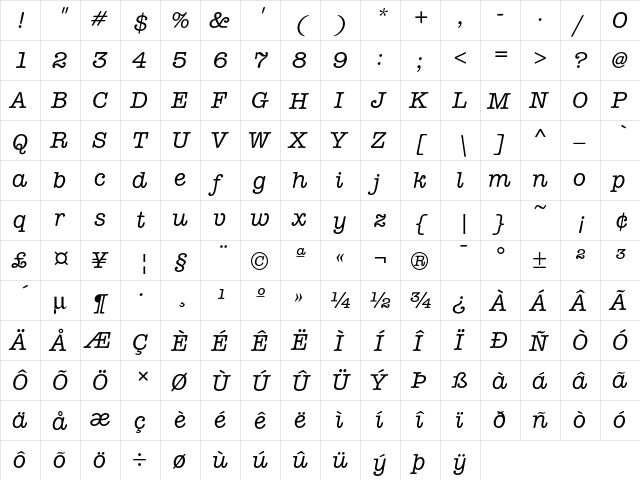
AmTypEFMedIta Regular
Design Context for AmTypEFMedIta Typeface
AmTypEFMedIta offers clean, dependable letterforms without strong stylistic allegiance, making it a practical choice for designers who need flexibility.
Pro Tip: Use AmTypEFMedIta in both headline and body roles to test its range before committing to a single application.